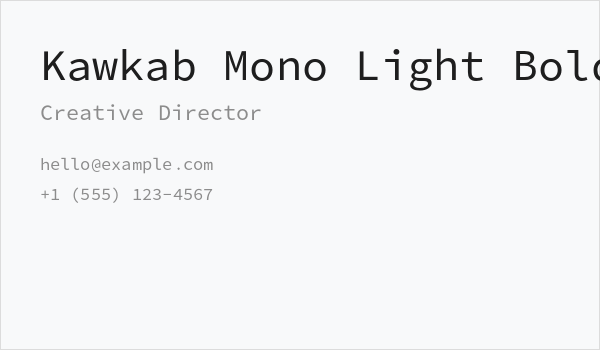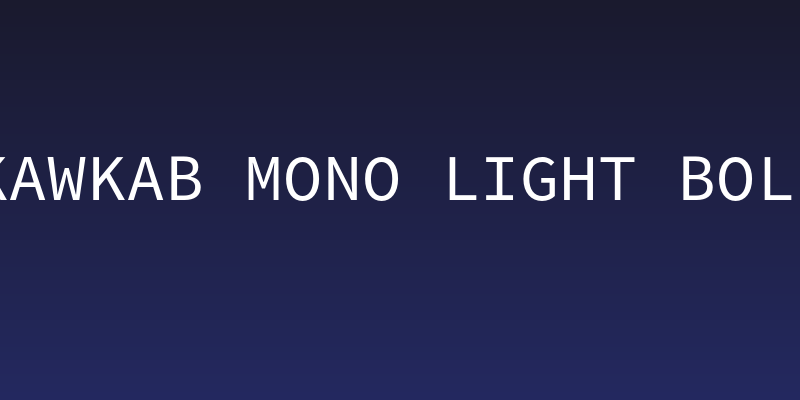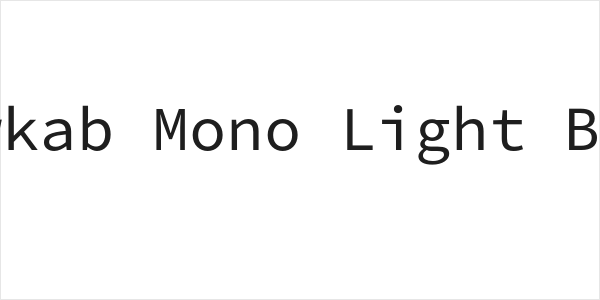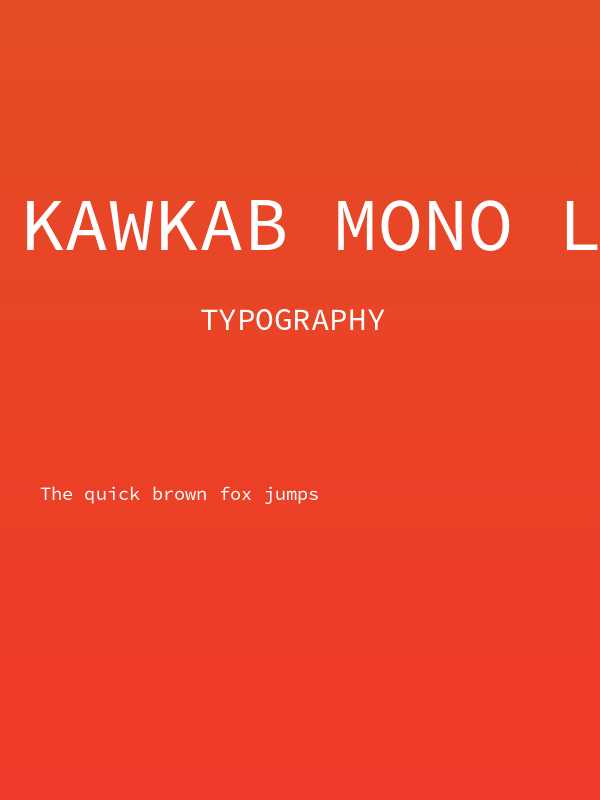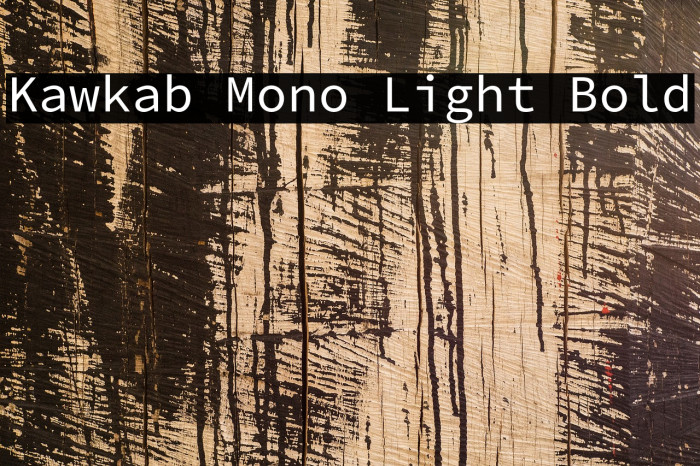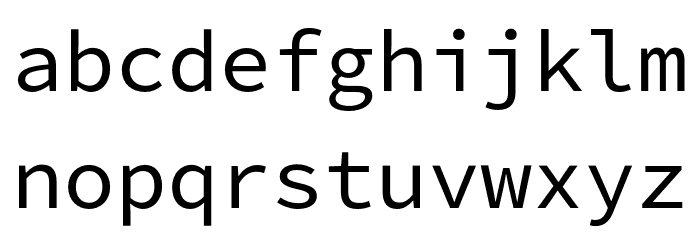
Kawkab Mono Light Bold Font
Kawkab Mono Light Bold Description
This font features a clean and modern monospaced design, characterized by uniform character width and a straightforward, geometric structure. The uppercase and lowercase letters maintain a consistent height, contributing to a balanced and orderly appearance. The numerals are clear and easily distinguishable, making them suitable for technical and coding environments. Special characters are well-defined, enhancing the font's versatility. The overall design is minimalistic, with a focus on readability and functionality, making it ideal for both digital and print applications.